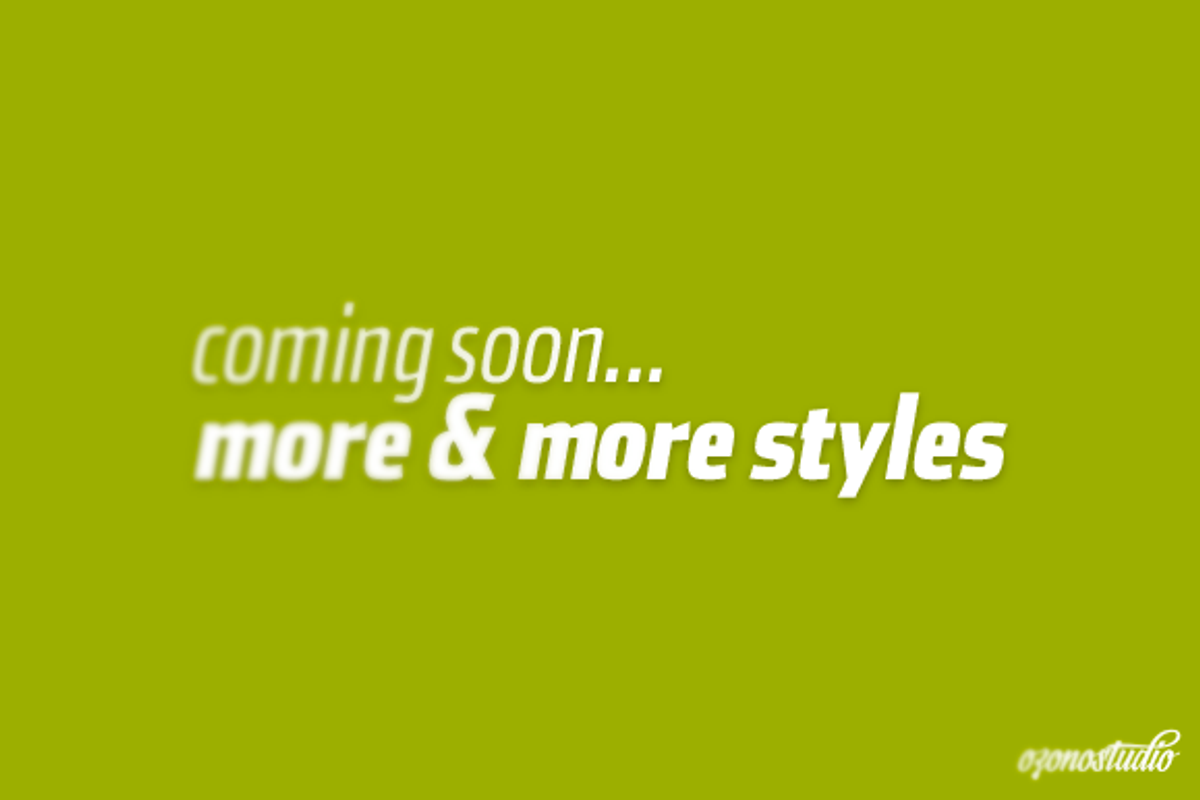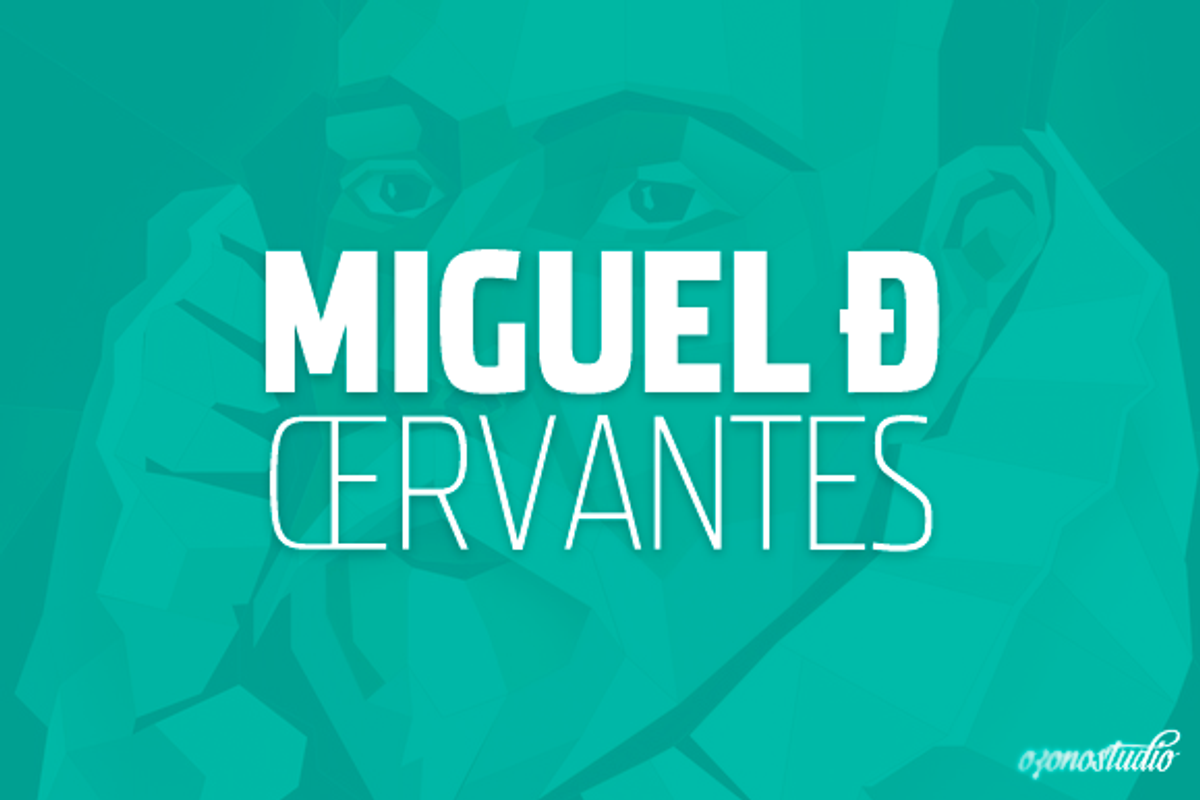
Mirele - Evolutive Font
Mirele - Evolutive Font by ozonostudio is a font selected for branding, posters, packaging, typography.
- Mirele Condensed UltraLight
- Mirele Condensed Light
- Mirele Condensed Black
Why Mirele - Evolutive Font is worth a look
Mirele - Evolutive Font by ozonostudio fits naturally into Branding, posters, packaging, typography.